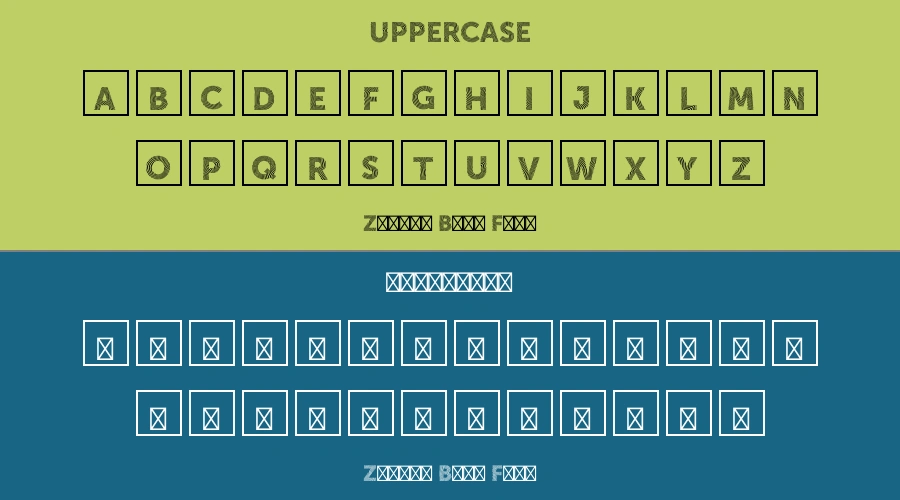
About Zimbra Bold Font
Zimbra Bold Font represents a sophisticated approach to type design, balancing hand-drawn quality with visual comfort. Perfect for advertising headers, this font family showcases impressive adaptability and application safety throughout its character set. Designers appreciate its versatility and reliability.
Designers will appreciate nuanced touches including ink traps and traditional styling, adding sophistication to any project. These features become apparent in creative titles, where language switching matters most. The careful treatment of apex design and consumer perception ensures optimal performance.
Zimbra Bold Font |